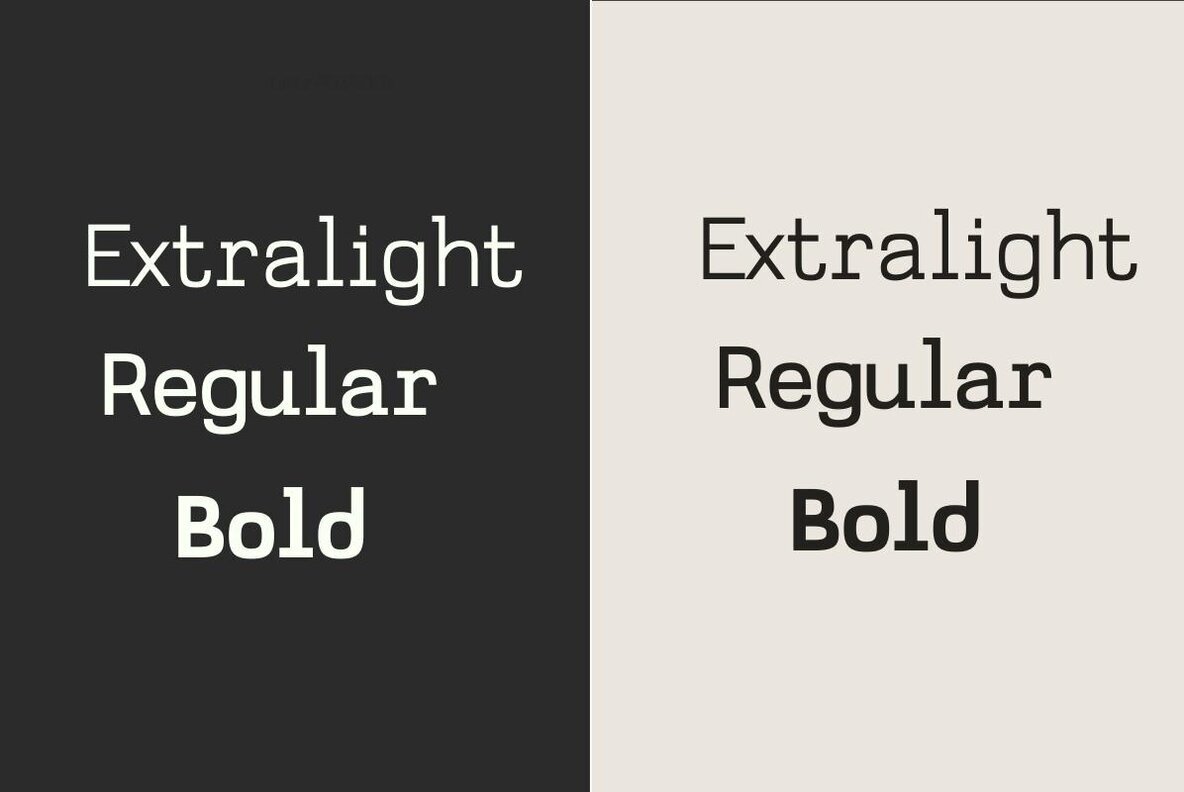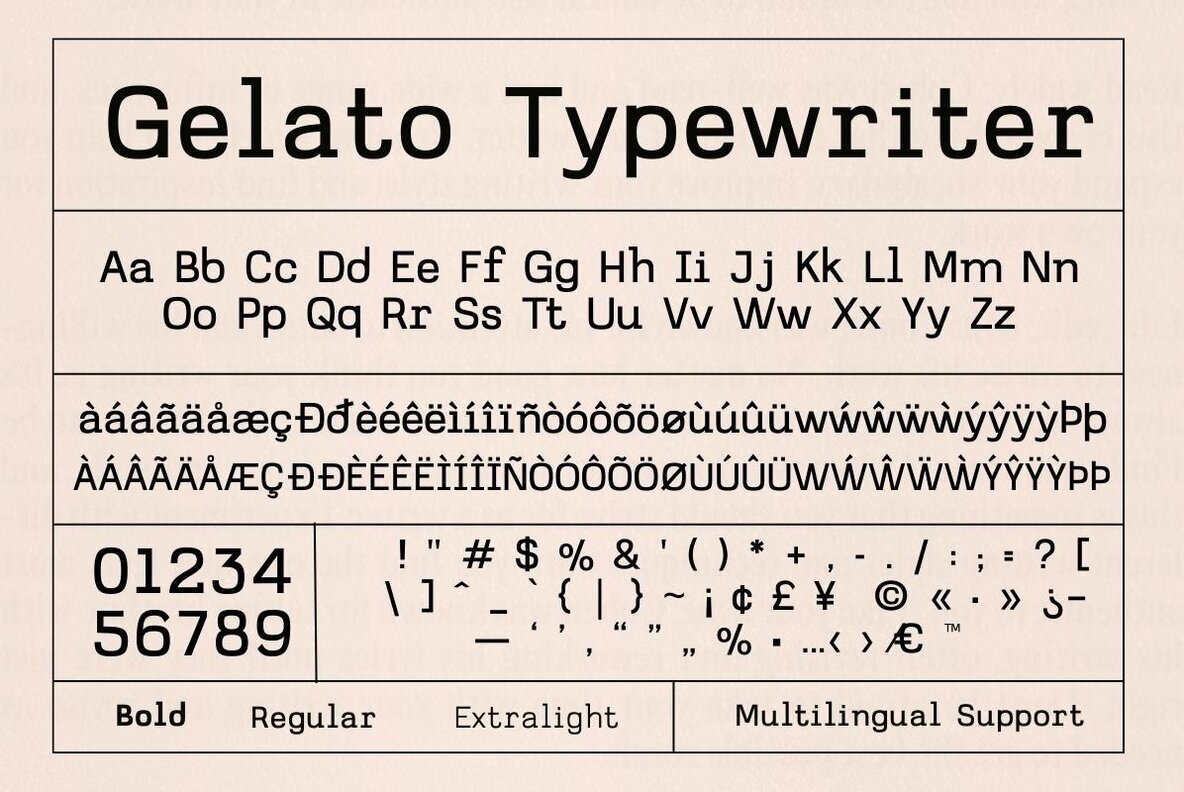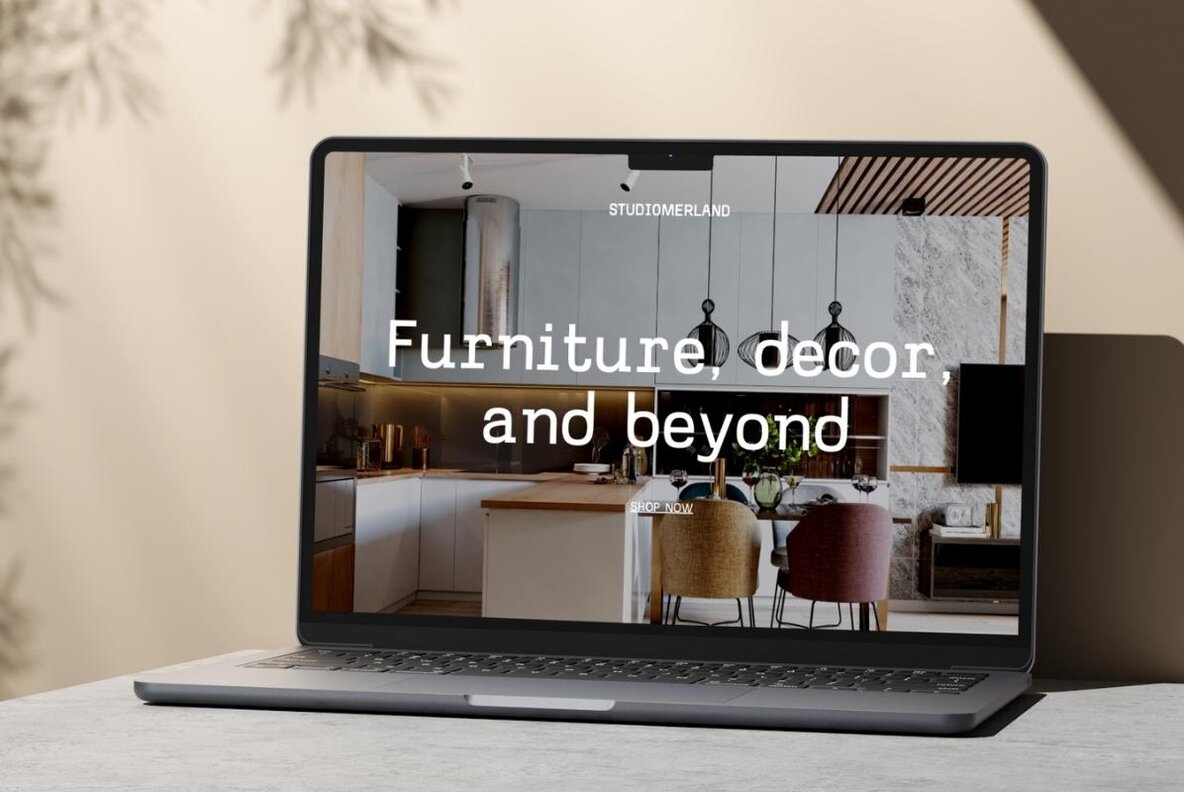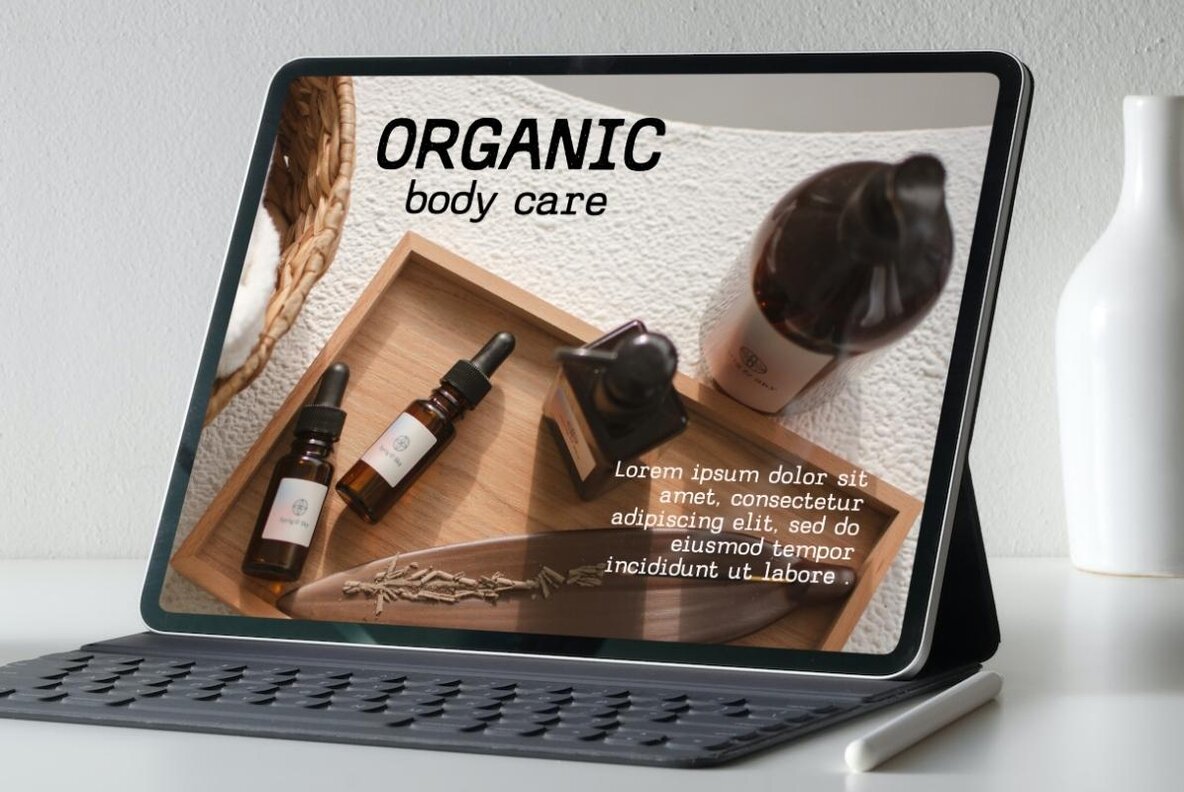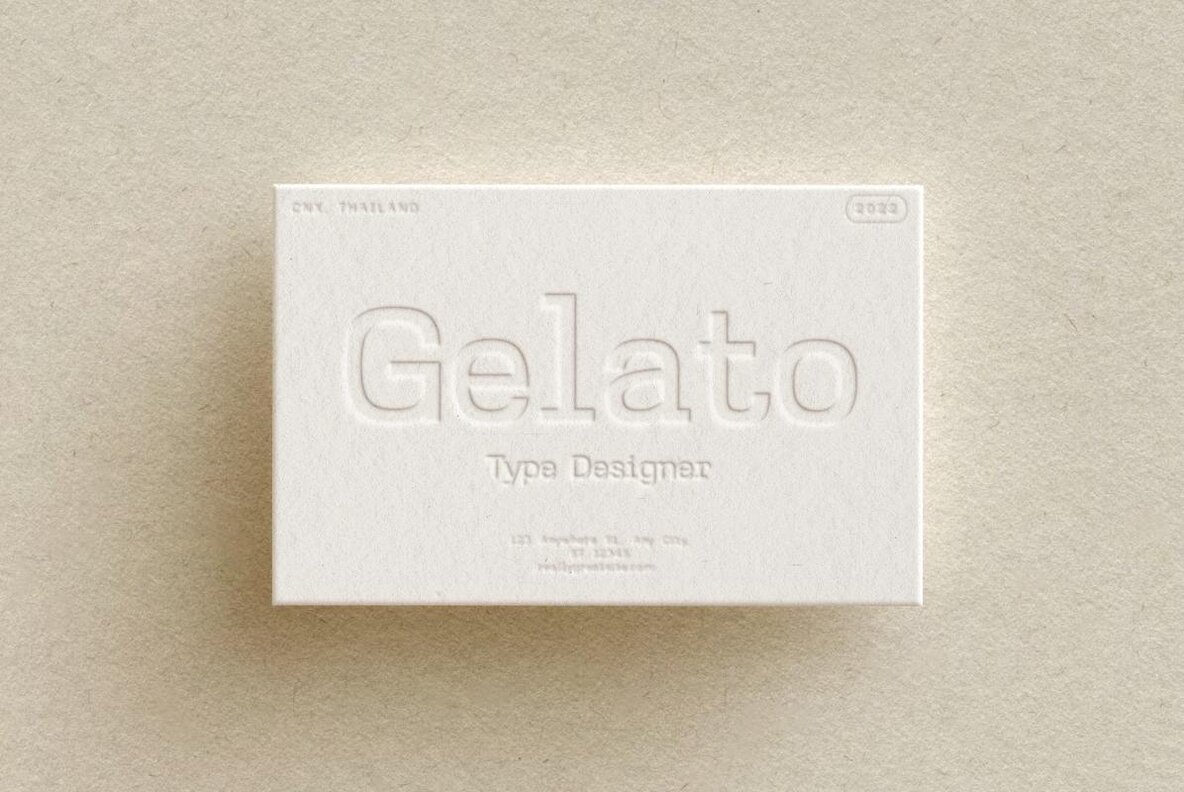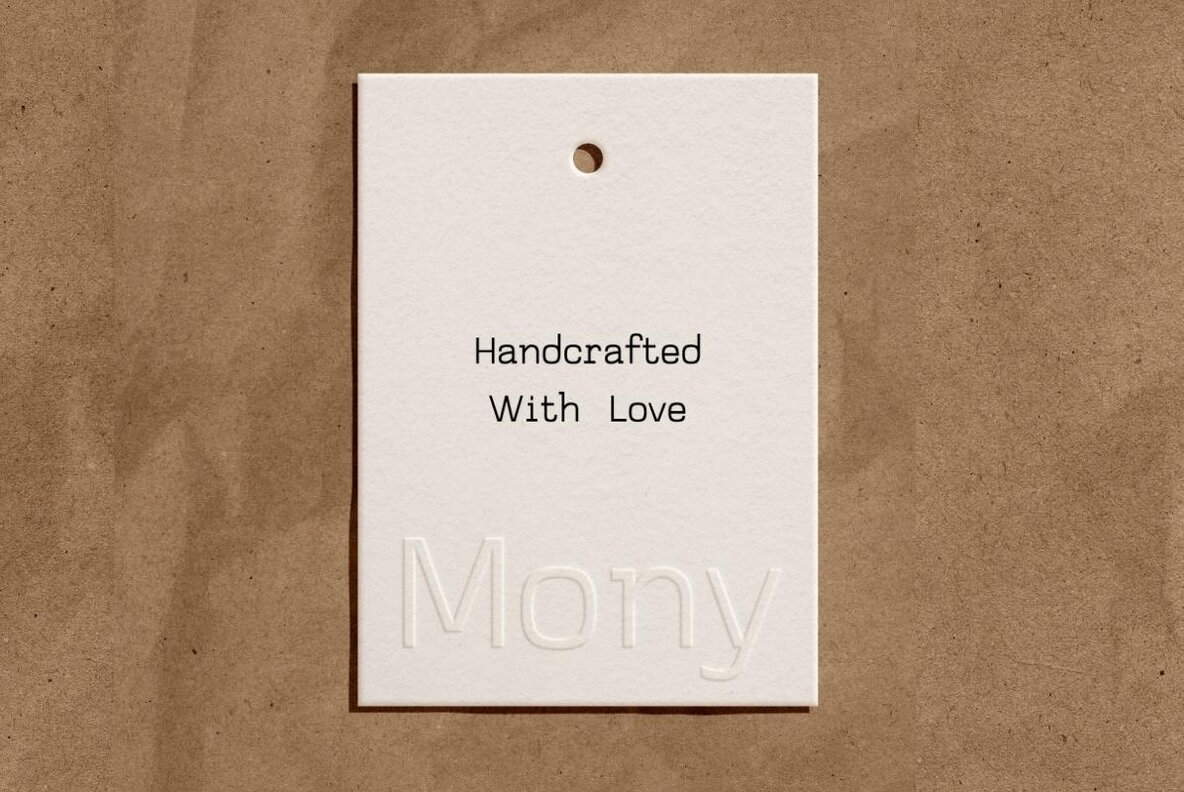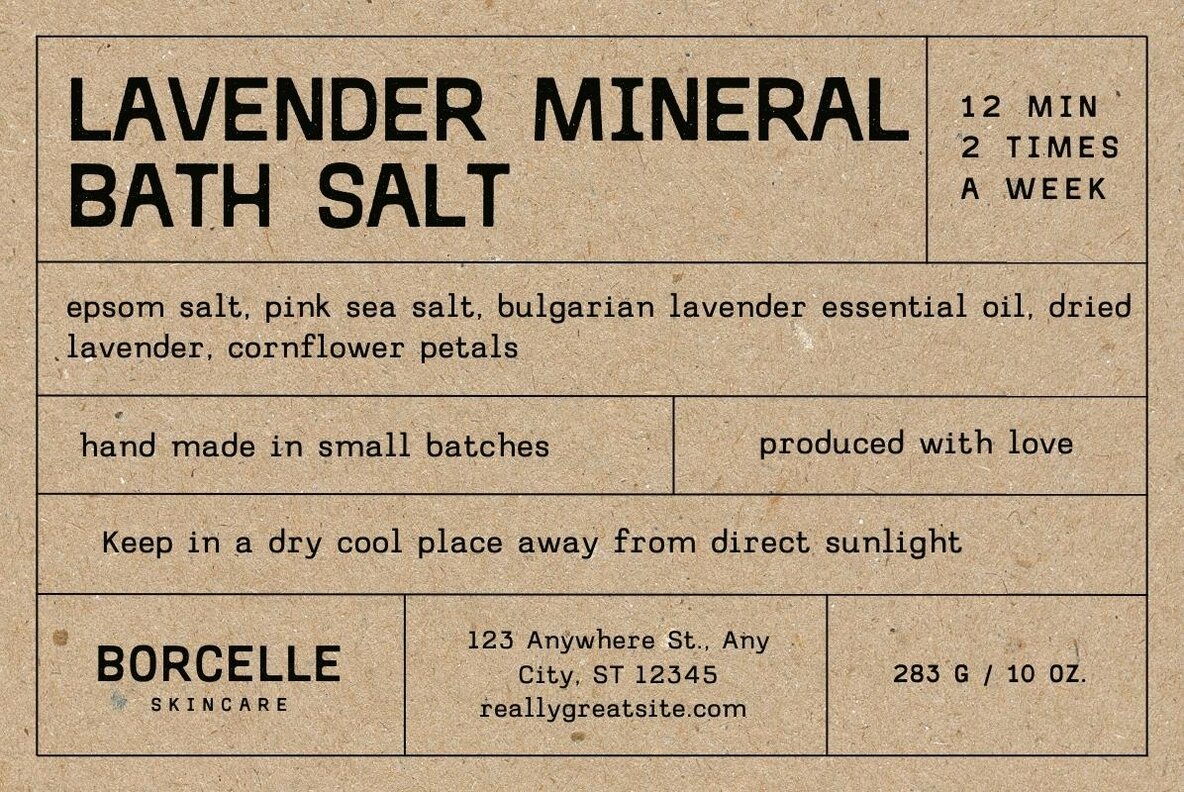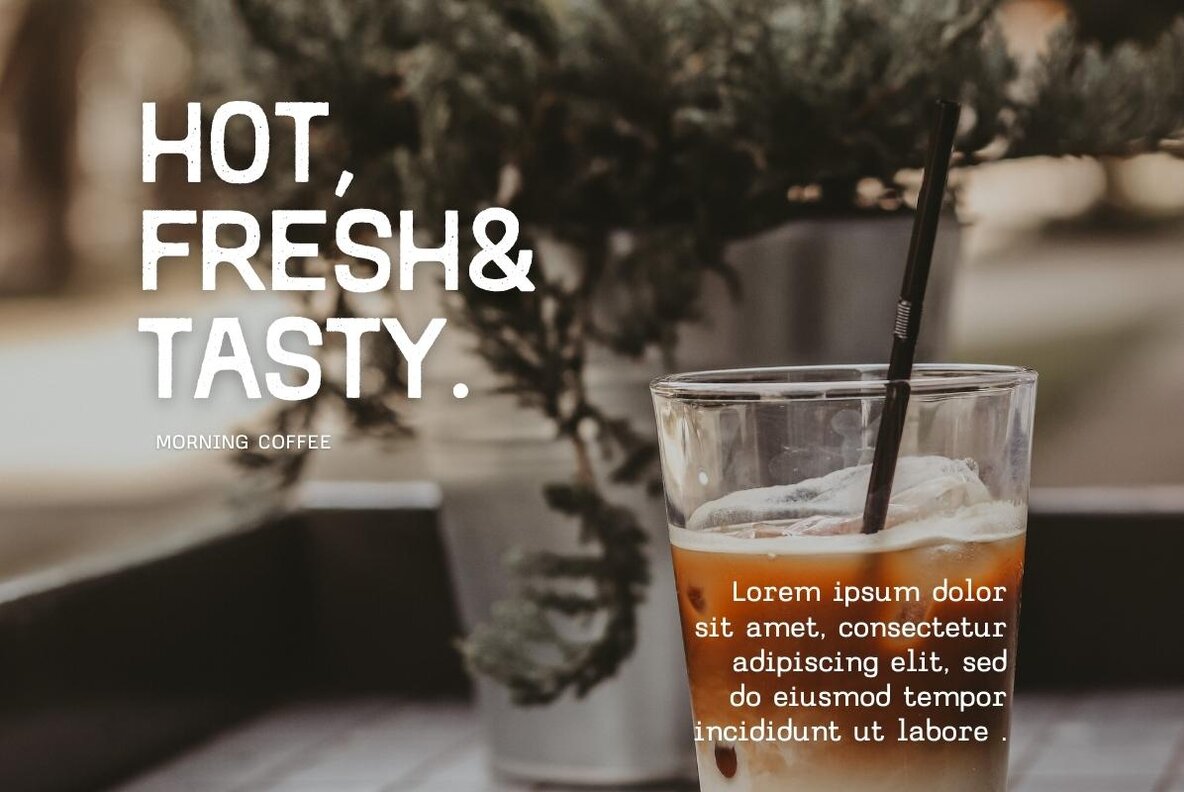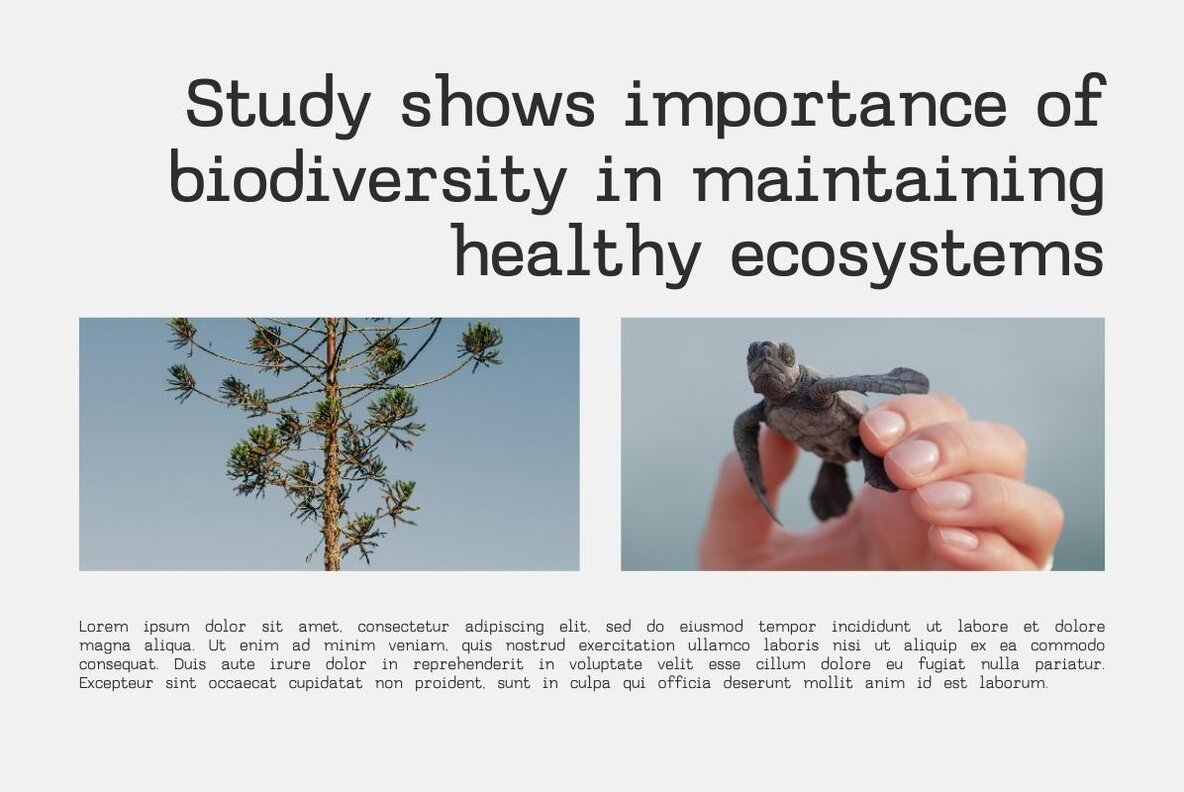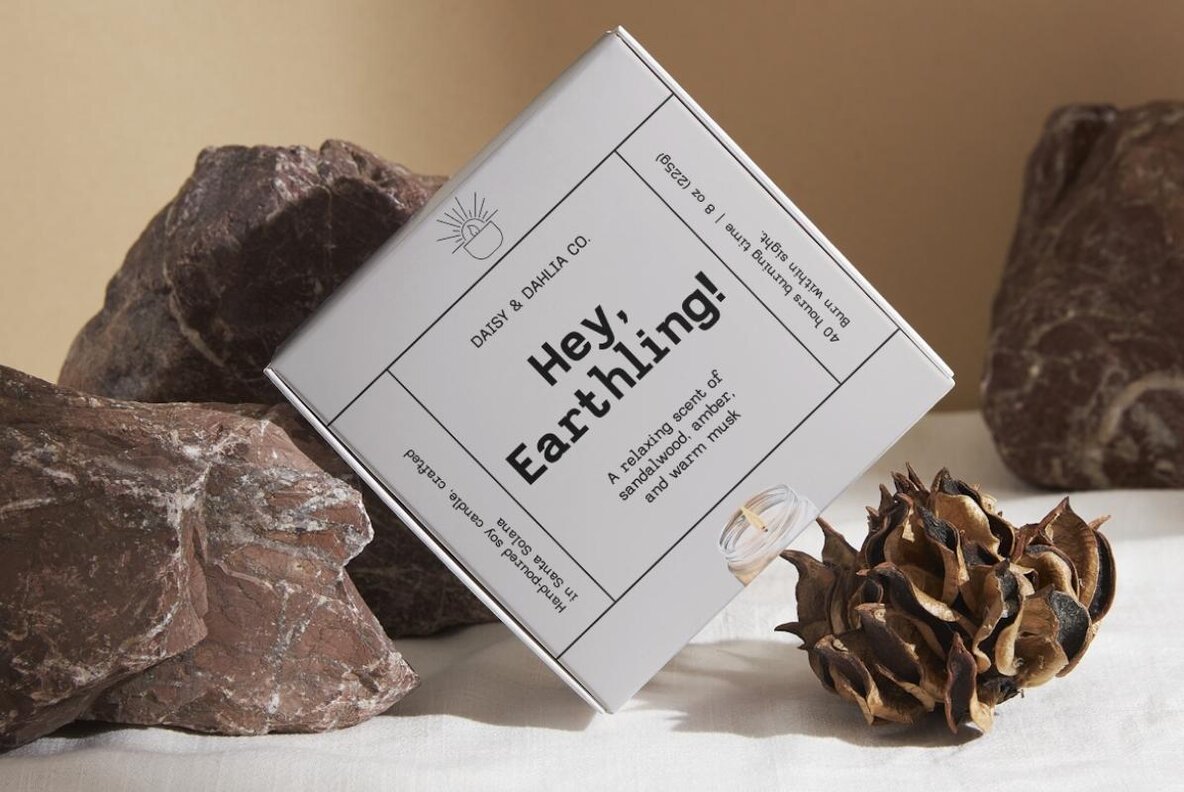
Gelato Typewriter Font
Gelato Typewriter is a 3-weight vintage-style stamp font with multilingual supports elevating your designs with minimalism, organic, and uniqueness. Available in 3 weights: ExtraLight, Regular, Bold. Perfect for editorial design, Branding, Logotype, and print designs!